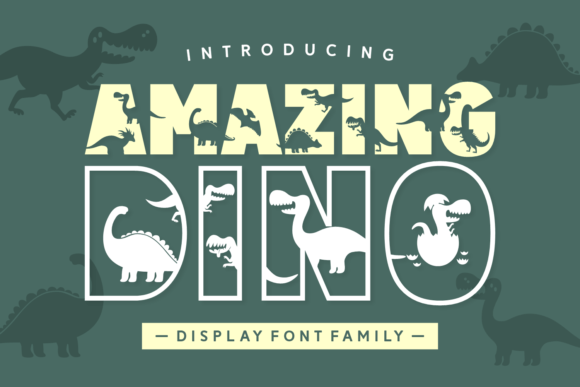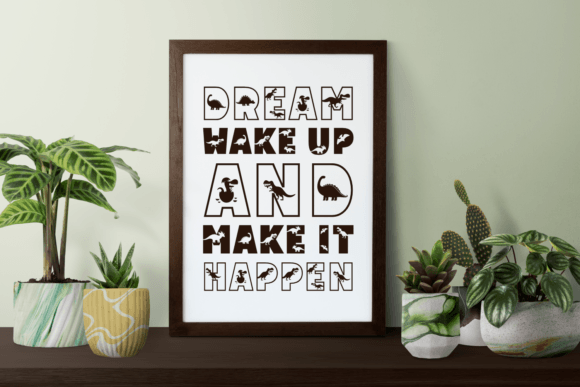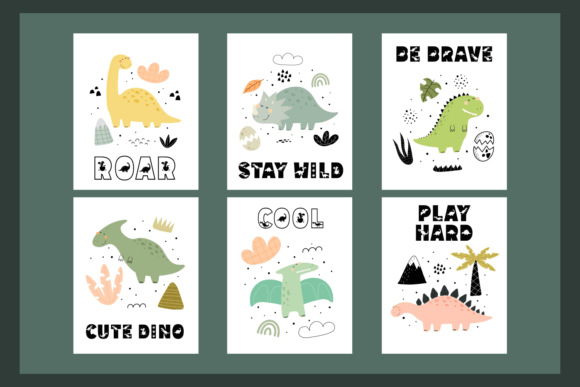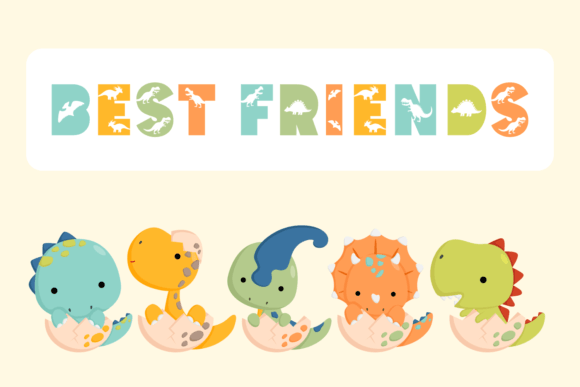
Amazing Dino Font
About the Amazing Dino Font
Introducing the Amazing Dino Font, a beautifully crafted typeface designed to elevate your creative projects. Amazing Dino is an adorable decorative font perfect for anyone passionate about the Mesozoic Era! Playful, unique, and inviting, this font is sure to get the kids and adults equally excited!
Amazing Dino’s playful character makes it ideal for children’s books, branding for toy companies, or playful packaging designs. It also works well in eye-catching headlines for events or promotions targeting a younger demographic. However, its decorative nature makes it less suitable for body text or user interfaces, where readability is paramount. Avoid using it for large blocks of text.
Pairing Amazing Dino effectively requires a contrasting typeface. A clean sans-serif like Open Sans or Lato would provide excellent balance, offering readability for supporting text. Alternatively, a more playful but legible script font could create a cohesive yet dynamic feel.
The font’s overall personality is undeniably fun and friendly, making it a strong choice for projects that need to communicate energy and approachability.
Amazing Dino Font Usage Examples
Amazing Dino Font Example